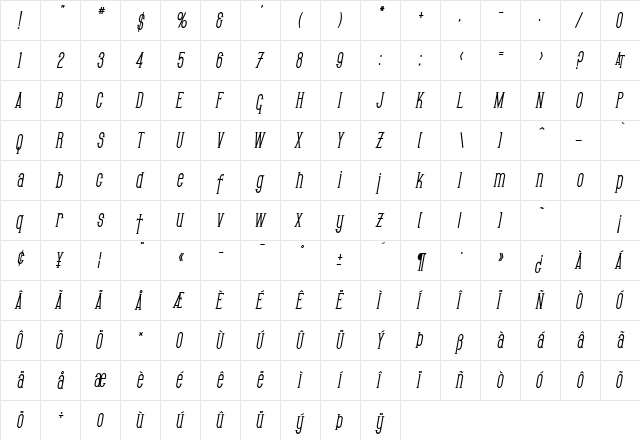
SF Gothican Condensed Bold Oblique Font Preview
Design Context for SF Gothican Condensed Typeface
SF Gothican Condensed takes a clean, functional approach — its unadorned letterforms prioritise legibility and work reliably across screen and print environments. The slanted form adds forward momentum and visual energy. Its bold stroke weight gives it real presence on the page. Its narrow stance lets it pack a punch even in space-constrained designs.
A strong choice for UI design, app interfaces, bold signage, and corporate brand systems.
Font Pairing: Use SF Gothican Condensed for headlines alongside a lighter-weight sans or serif for body copy to establish clear visual hierarchy.
Pro Tip: Try SF Gothican Condensed in all-caps with moderate tracking for navigation and label copy — it performs well in systematic UI contexts.